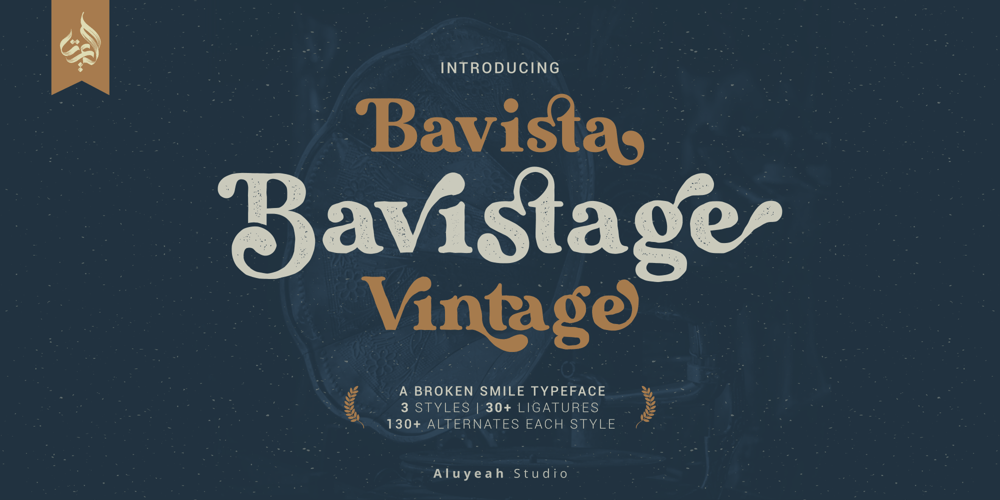
Al Bavistage Norm Font Family was designed by Linggar Sundoro and published by Aluyeah Studio. Al Bavistage Norm contains 3 styles and family package options. Hallo Aluyeaholic! Introducing Bavistage, a broken smile typeface. Inspired by the vintage vibe of a girl’s broken smile. It gives you past memories, disappointments and happiness at the same time. Coming with 3 styles, and each style has stunning 130+ alternatives, 30+ ligatures and it’s super easy to use.Very suitable for magazine, headline, website, ads, product package and all type of design project you have. Features:OpenType supportMultilingual support (15 languages)PUA EncodedSuper Easy to Use alternates – It’s OpenType support but you can easily call alternates character using special combination like A.2 R.3 h.5 etc. so you don’t need special software. To get results like the preview just type B.4av.3is.2.tag.2e.3You will receive:Al_Bavistage_NormalAl_Bavistage_StampAl_Bavistage_VintageThanks for checking out my font. I really hope you enjoy using it!If you have any questions I’d be more than happy to answer them, just send me a message!